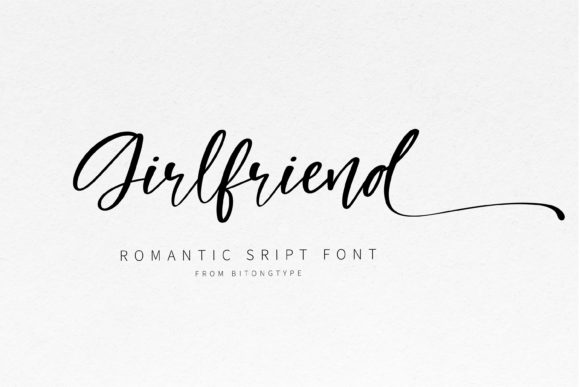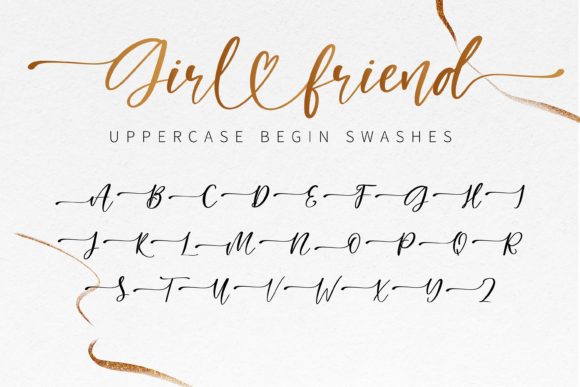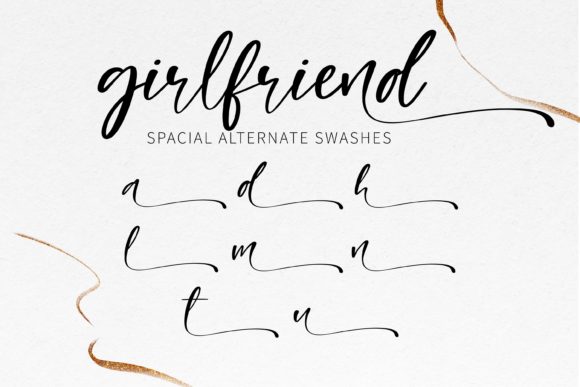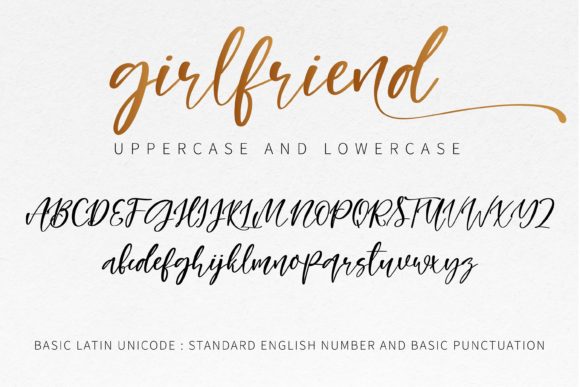
Girl Friend Font
Girl Friend is a delicate, elegant, and flowing handwritten font. It has beautiful and well-balanced characters and as a result, it matches a wide pool of designs. This font is PUA encoded which means you can access all glyphs and swashes with ease!